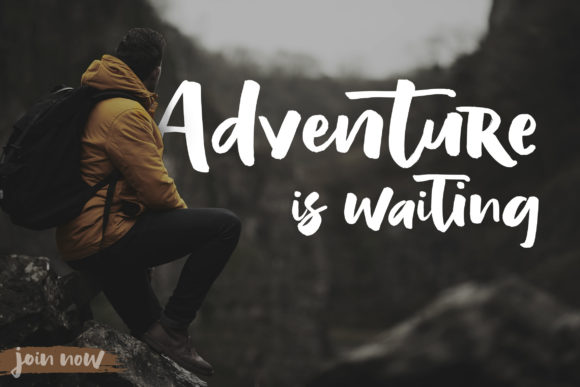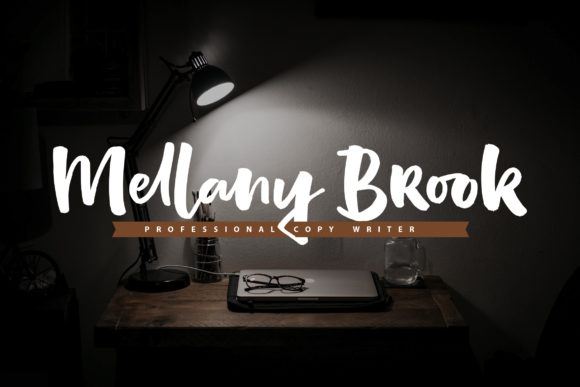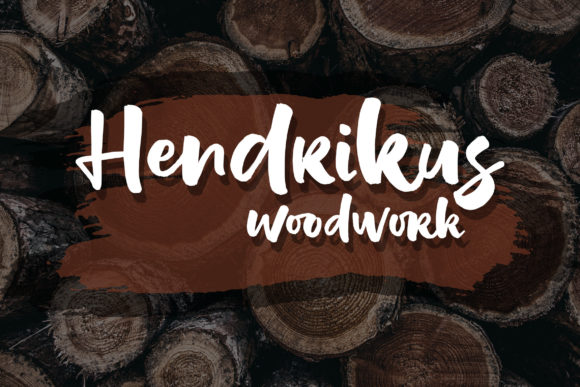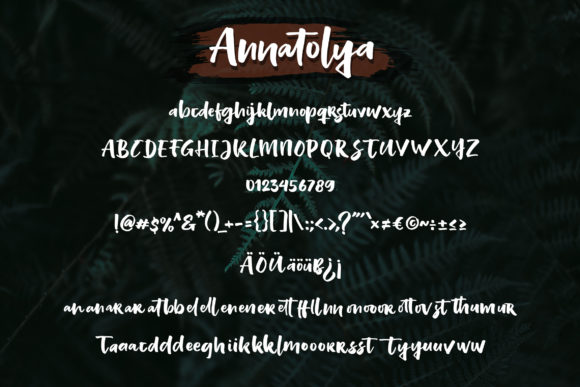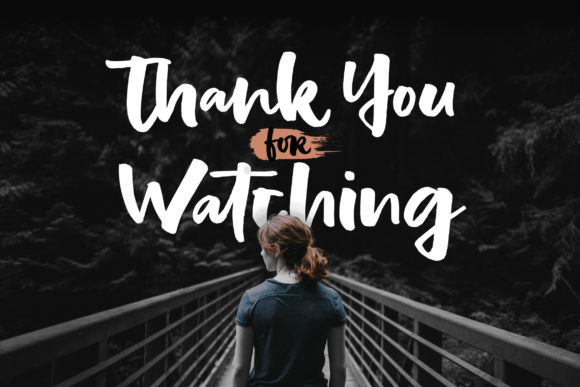
Annatolya Font
About Annatolya Font
Annatolya is a trendy and chic handwritten font. It is PUA encoded which means you can access all glyphs and swashes with ease! Use this font for your designs and explore its endless possibilities.